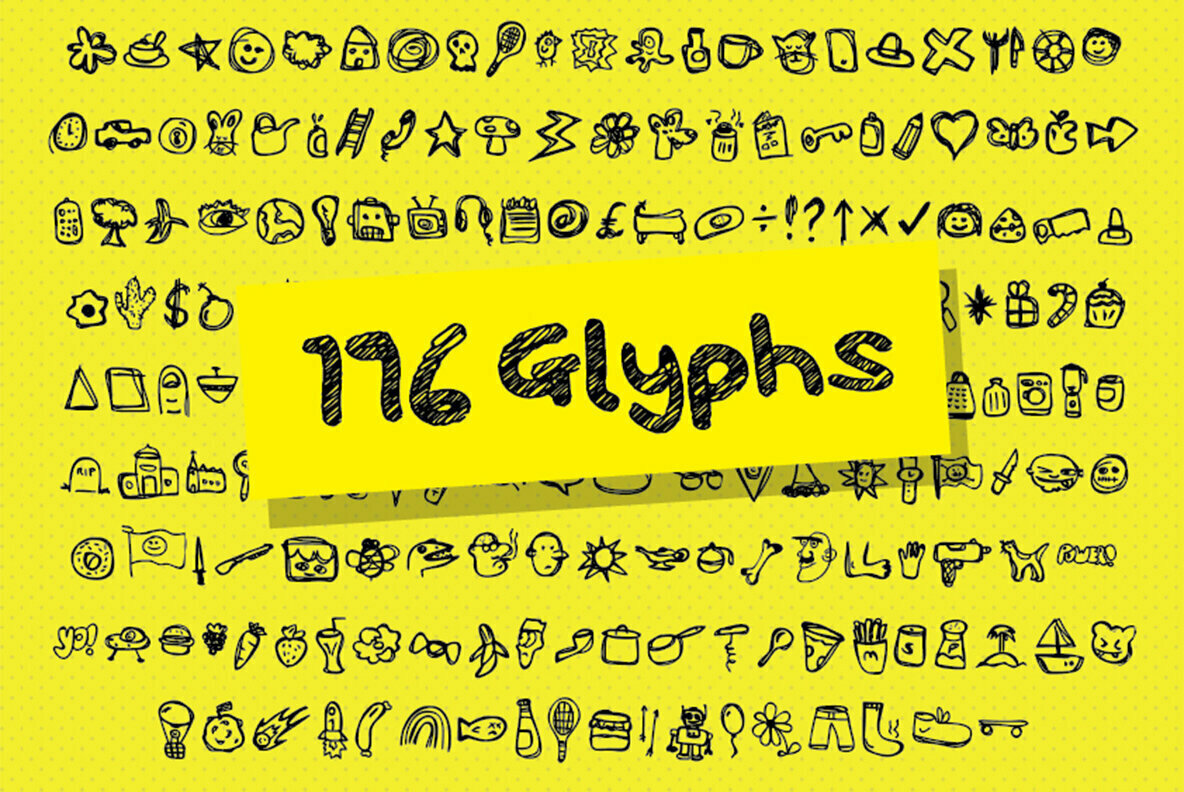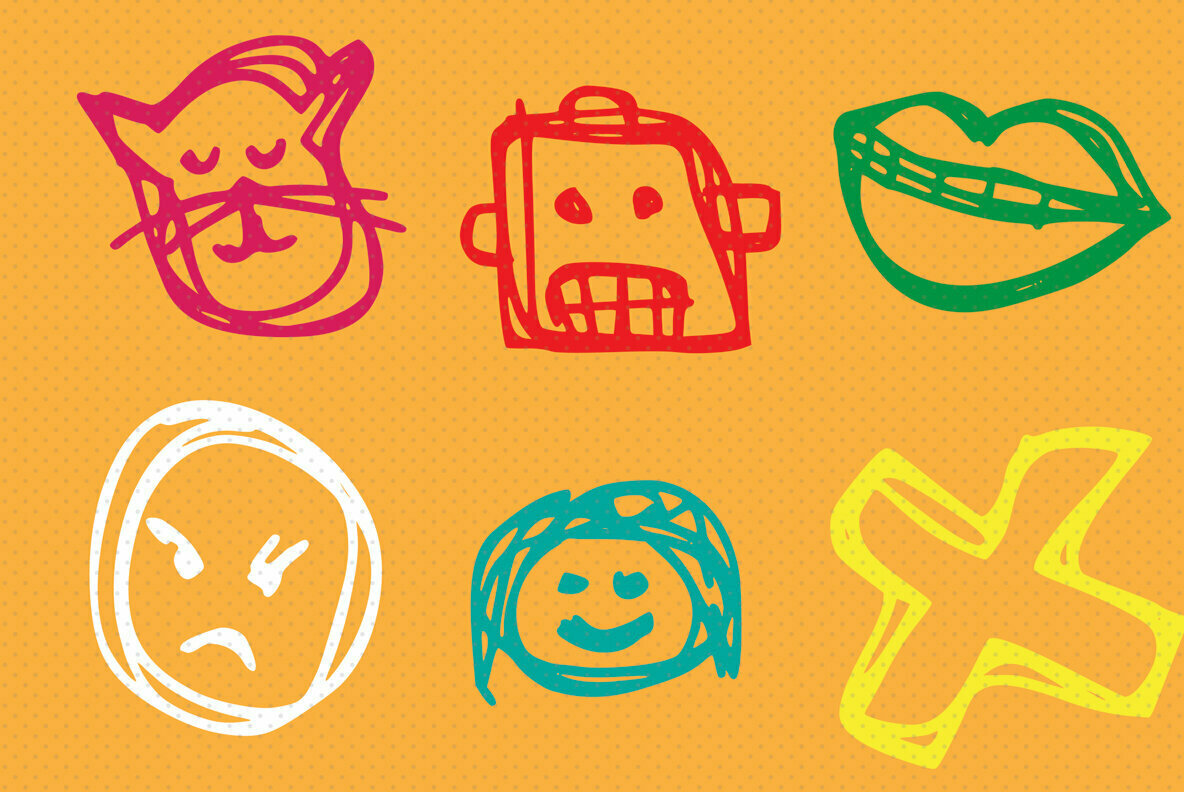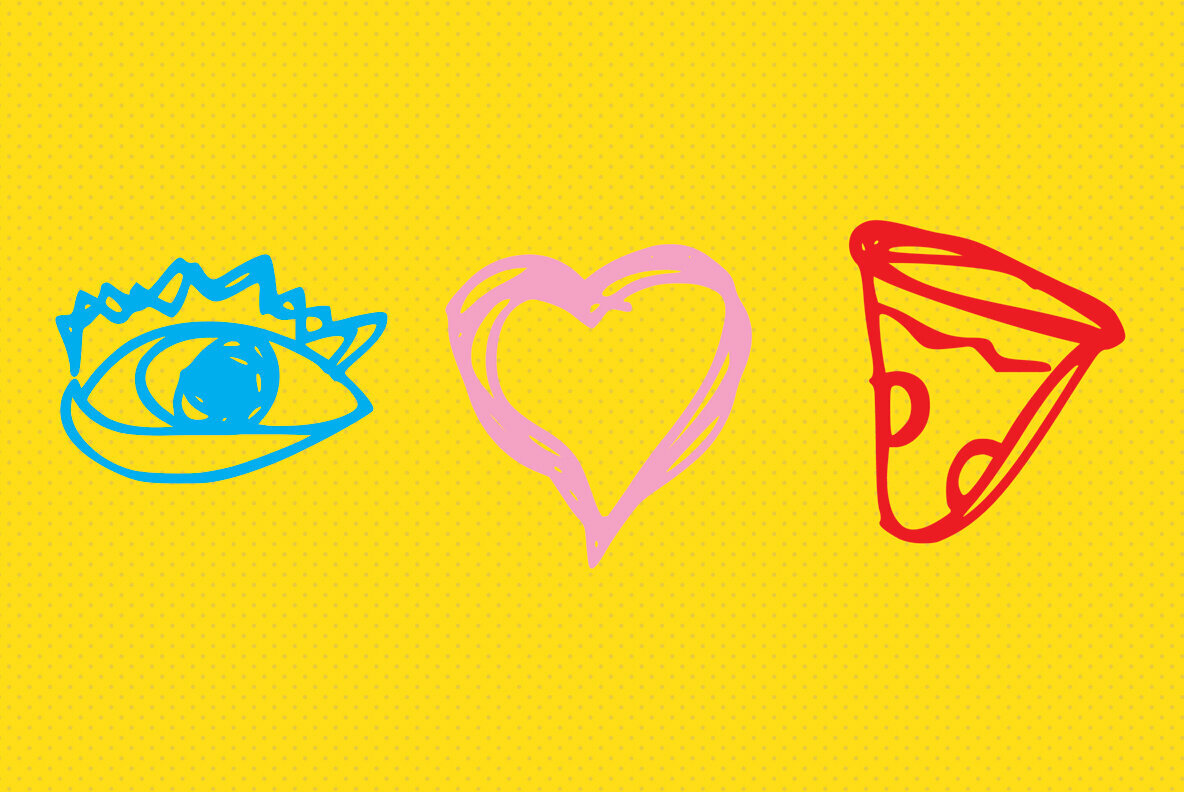
Doddles 1
Over 190 hand drawn scrappy and rough doodles for use almost any design. Select from over 190 plus cute doodles dingbats from everyday objects, foods, shapes, symbols and more!